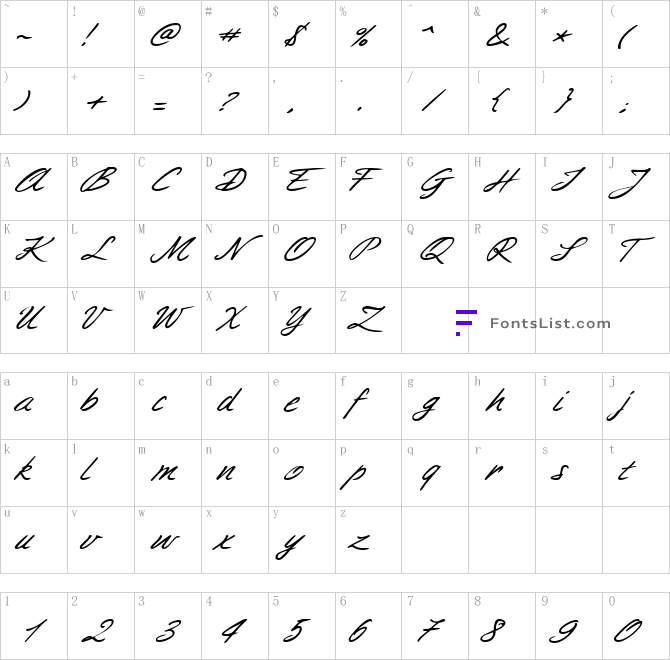
- Font Name:AimeeExtended
- Subfamily:Altsys Fontographer 4.1 AimeeExtended Italic
- Full Name:AimeeExtended Italic
AimeeExtended-Italic.ttf is a very beautiful artistic font, AimeeExtended-Italic.ttf is widely used in the design and printing of various books and pictures,AimeeExtended-Italic.ttf has a strong visual impact,AimeeExtended-Italic.ttf is a commonly used font in newspapers, magazines and books, and is used in posters, e-commerce Poster design, store design, logo design, font design and other fields.AimeeExtended-Italic.